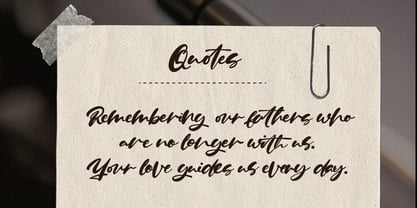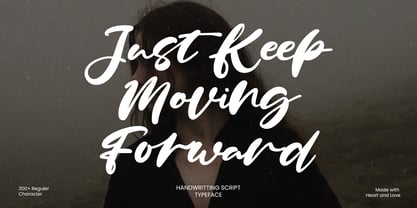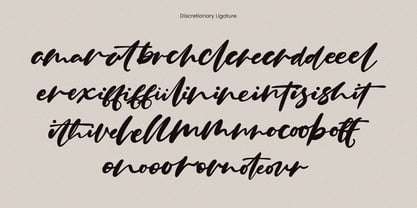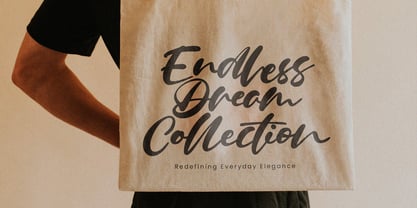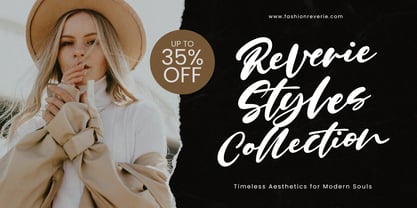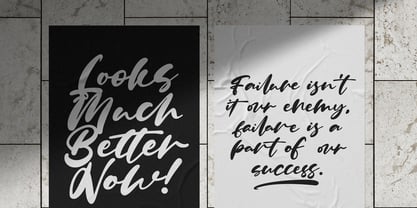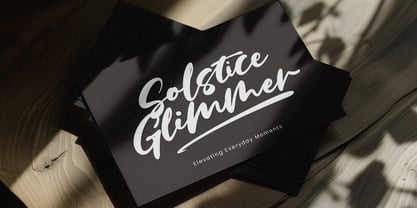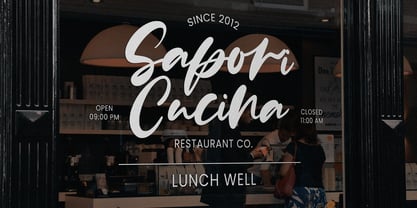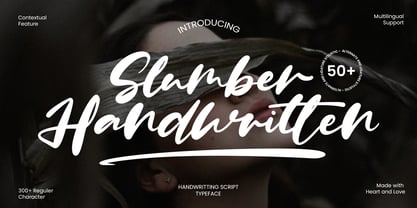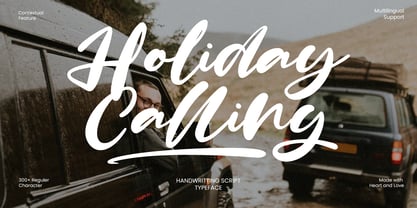
Slumber
by Inviline
The Slumber Font Family was designed by Virgiawan Listanto and published by Inviline. Slumber contains 1 styles.
Slumber is a smooth and expressive handwritten font with over 300 characters, 50+ stylistic alternates, ligatures, and multilingual support. This font includes uppercase, lowercase, numerals, punctuation, contextual alternates, and discretionary ligatures — all crafted to bring a heartfelt and authentic handwritten touch to your design. Perfect for branding, quotes, wedding invitations, packaging, social media, and lifestyle design projects.